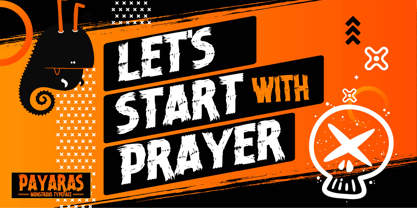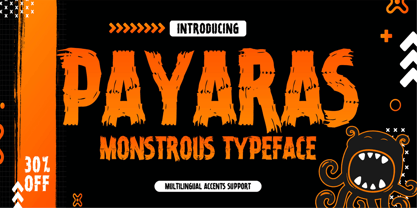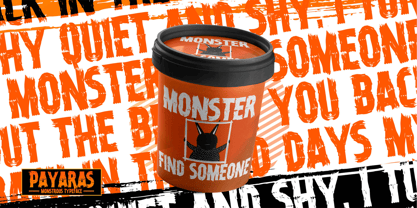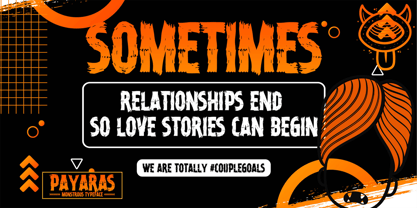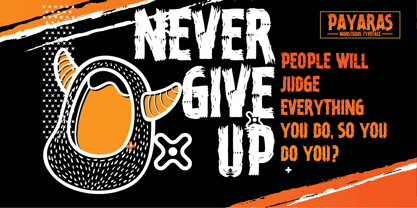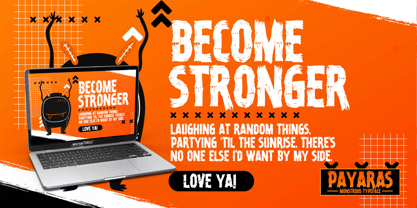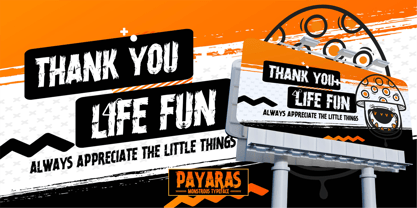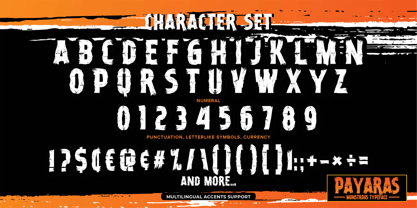
Payaras
by Almarkha Type
The Payaras Font Family was designed by Abdul Malik Wisnu and published by Almarkha Type. Payaras contains 1 styles. More about this family
Hello Everyone, introduce our new product Payaras – Display Sans Monstrous Typeface, Textured font and Best for poster, childrenbook, cartoon rough, comic and project that need horror vibes. Unleash the beast in your design with PAYARAS, a bold and monstrous typeface crafted to deliver raw energy, fierce character, and powerful impact for horror, game, poster, and edgy creative projects
Designers: Abdul Malik Wisnu
Foundry: Almarkha Type